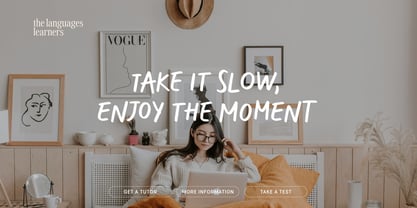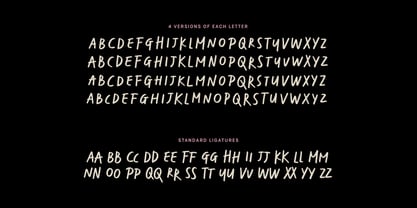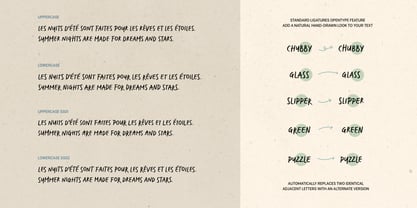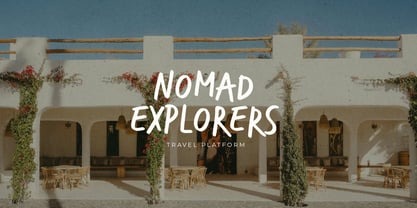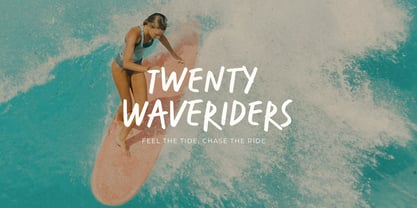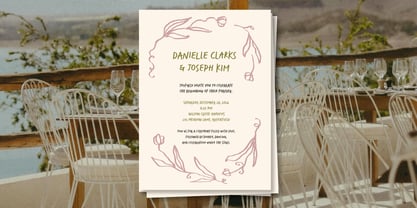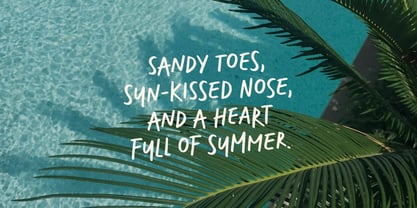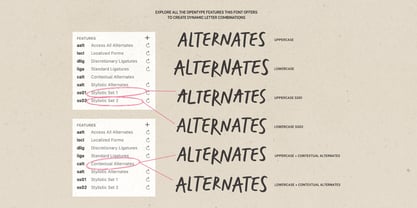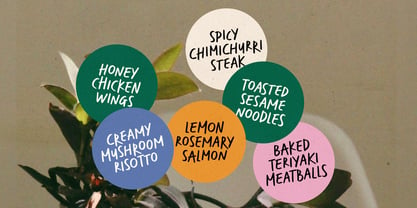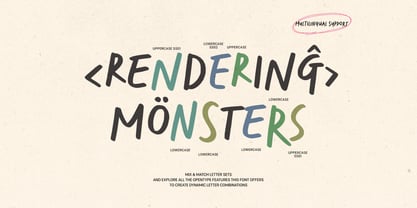
Markerism
by type peace
The Markerism Font Family was designed by Hai Anh Nguyen and published by type peace. Markerism contains 1 styles. More about this family
MARKERISM is a bold and expressive marker font designed for natural, hand-drawn typography. With four variations of each letter and rich features, including ligatures and contextual alternates, it effortlessly creates authentic, dynamic text. Complete with multilingual support, MARKERISM is perfect for adding a personal and artistic touch to any design project. The font automatically replaces two identical adjacent letters with an alternate version to create a more natural handwritten look. If this feature isn't applied automatically, enable the Standard Ligatures option. Mix & match letter sets and explore all the features this font offers to create dynamic letter combinations!